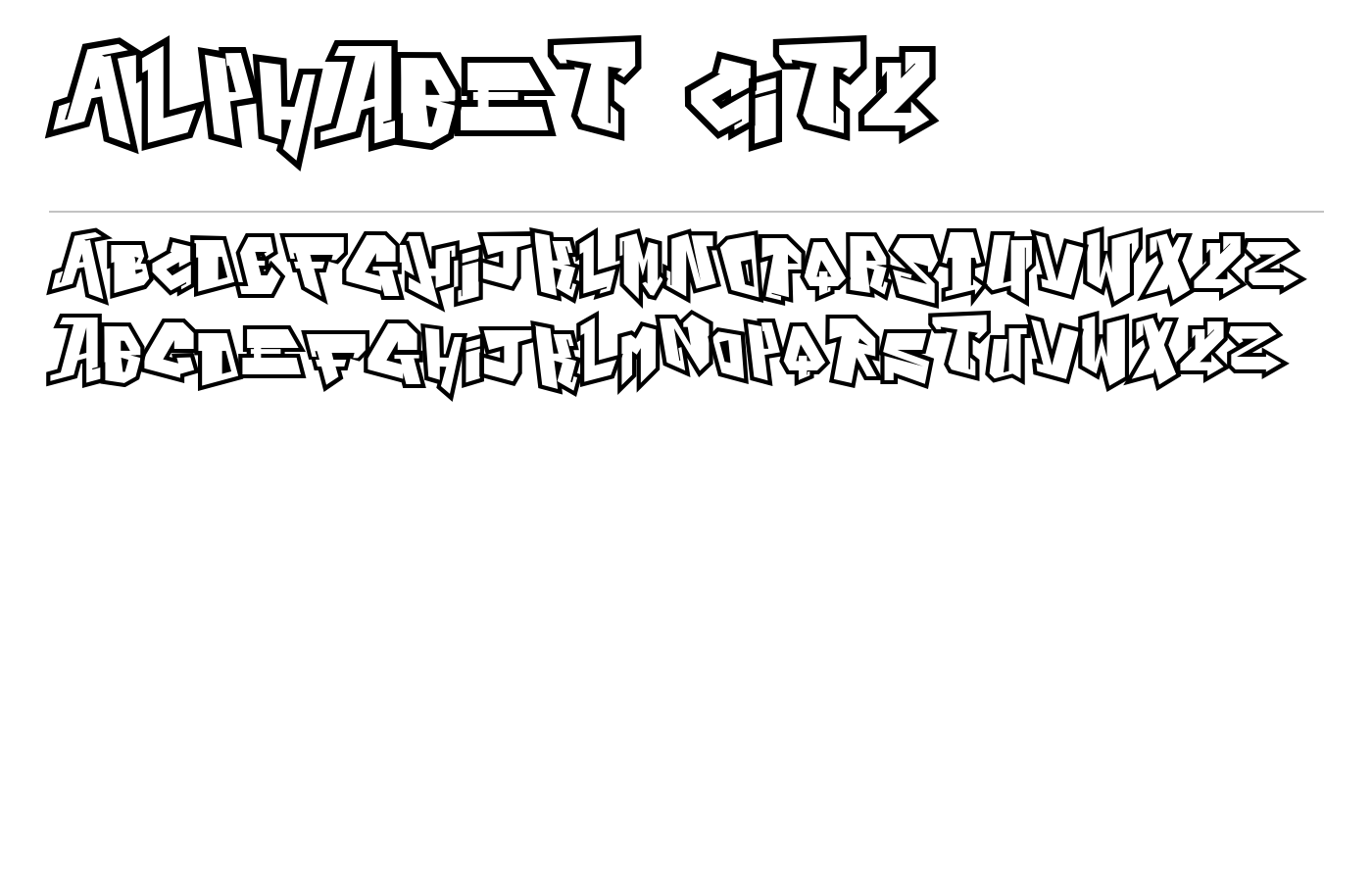
Alphabet City Font is a bold, edgy display typeface that captures the raw energy of urban graffiti art. Its jagged strokes, irregular shapes, and strong outlines give it a rebellious and streetwise personality, making it perfect for dynamic branding, posters, and designs that want to evoke a youthful, urban vibe. This font works best in headlines or logo work where a bold, standout presence is key.
Alphabet City Font
About Alphabet City Font